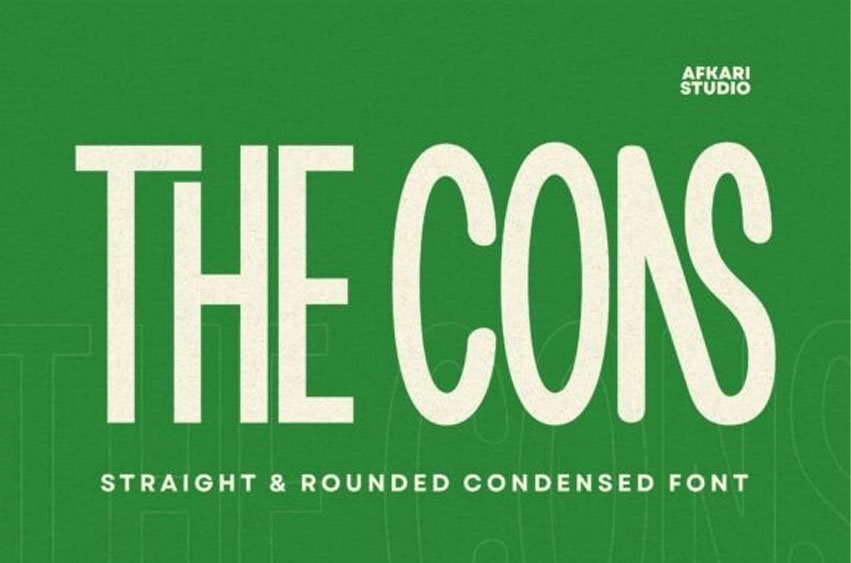
The Cons Font Condensed Sans Serif Display Font is a bold and space-efficient typeface designed for creatives who demand impact without sacrificing clarity. Its narrow structure and clean geometry make it an ideal choice for headlines, editorial layouts, modern branding, and beyond.
Crafted with versatility in mind, The Cons comes in four distinctive styles to suit a variety of tones and applications:
Regular – clean and minimal, perfect for contemporary aesthetics
Bold – assertive and powerful, built for strong visual presence
Rounded – smooth and friendly, ideal for approachable design
Bold Rounded – combines strength with warmth for a dynamic personality
Whether you’re shaping a forward-thinking tech identity or designing sleek editorial content, The Cons offers a perfect balance of precision, versatility, and modern appeal. Its condensed form allows for maximum expression in limited space, making every word count.